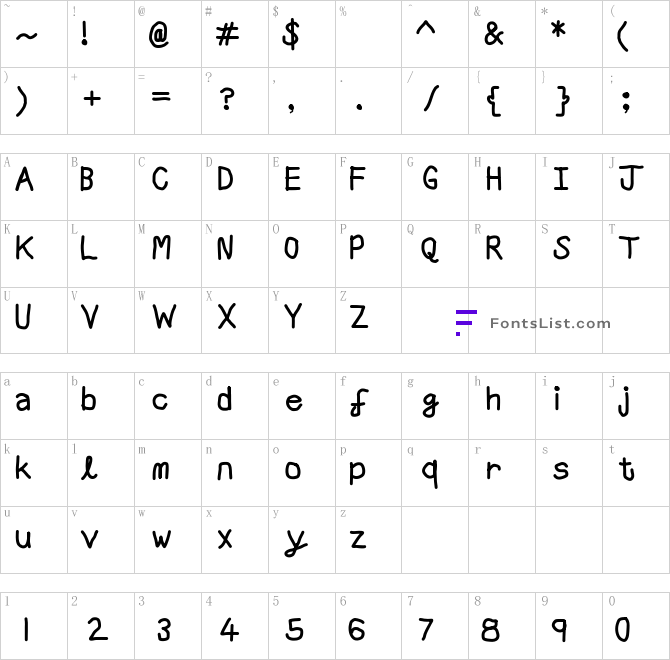
- Font Name:Aaron Sans
Aaron-SansRegular.ttf is a very beautiful artistic font, Aaron-SansRegular.ttf is widely used in the design and printing of various books and pictures,Aaron-SansRegular.ttf has a strong visual impact,Aaron-SansRegular.ttf is a commonly used font in newspapers, magazines and books, and is used in posters, e-commerce Poster design, store design, logo design, font design and other fields.Aaron-SansRegular.